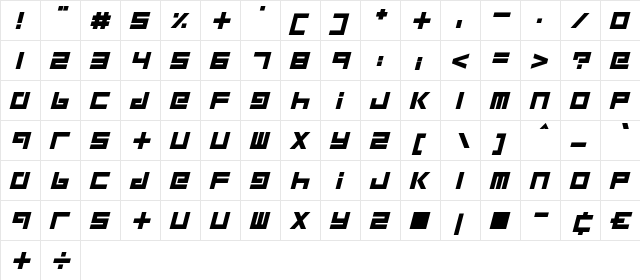
Robot Children Regular
Design Context for Robot Children Typeface
Robot Children trades formality for fun, with bouncy, characterful letterforms that bring warmth and energy to any project.
Font Pairing: Pairs well with a rounded or humanist sans for body copy, maintaining the friendly tone without relying on Robot Children to carry extended reading.
Pro Tip: Use Robot Children at larger display sizes where its expressive character can land. Pair with a clean, simple sans for body copy to maintain readability.